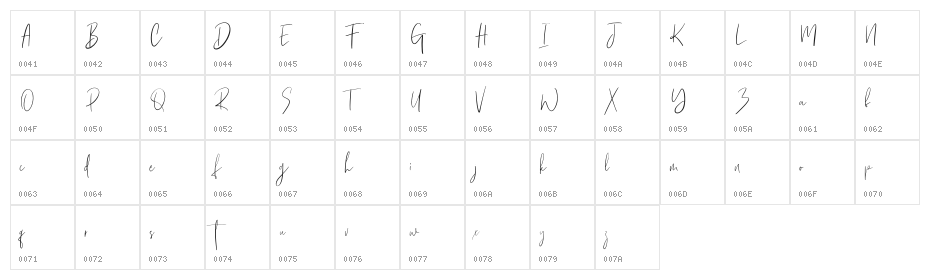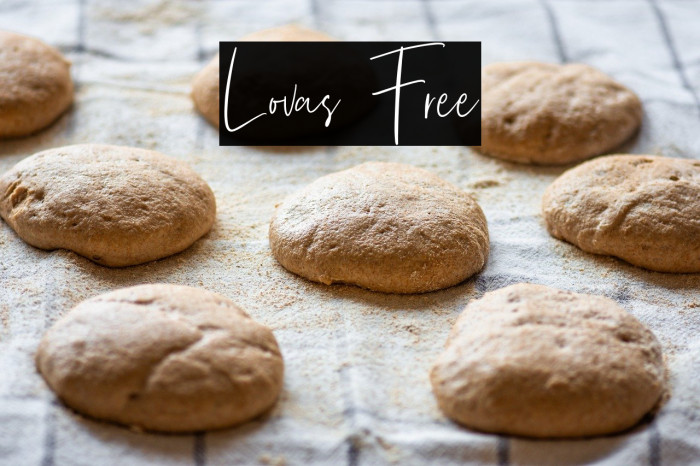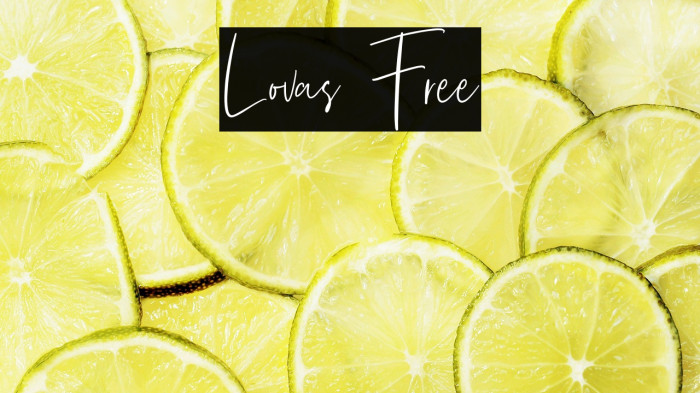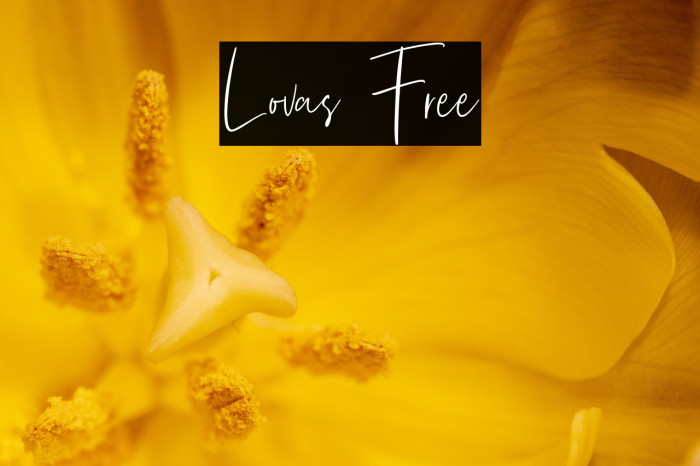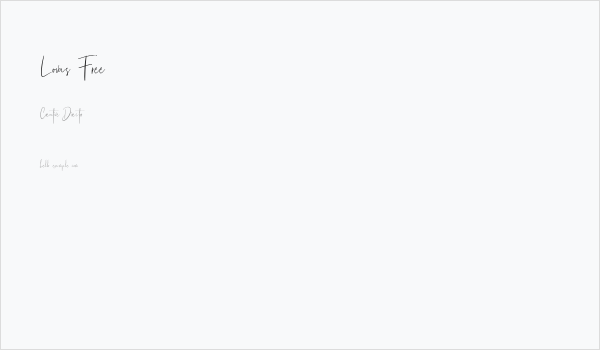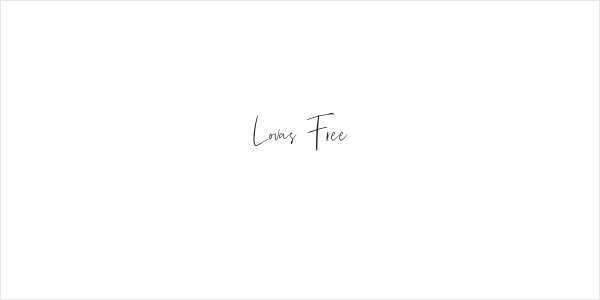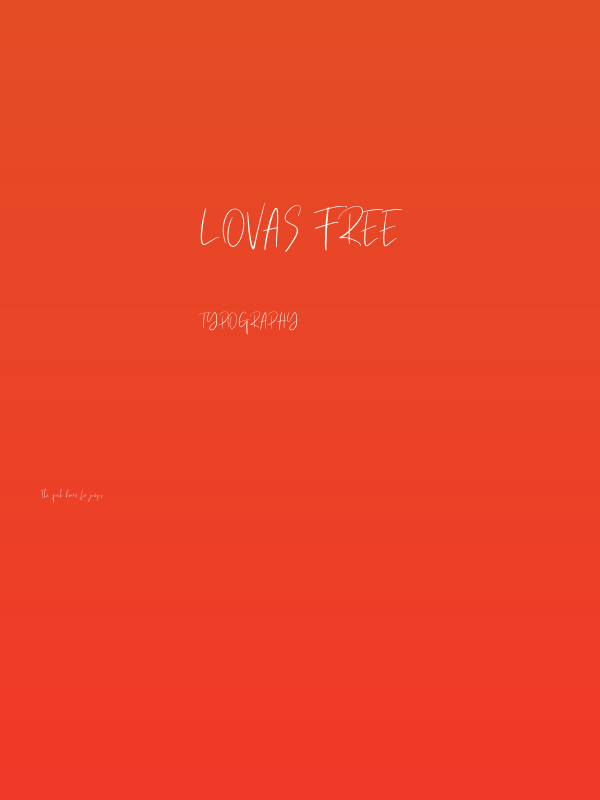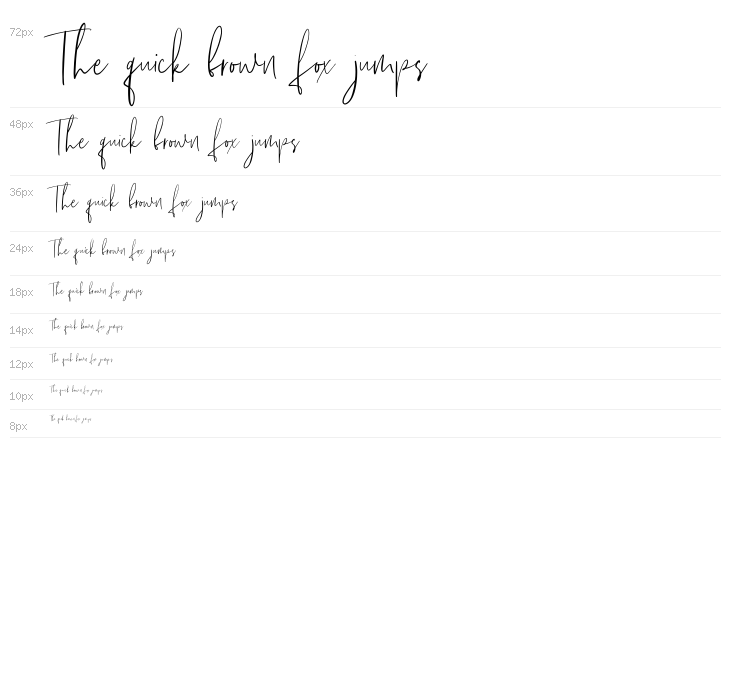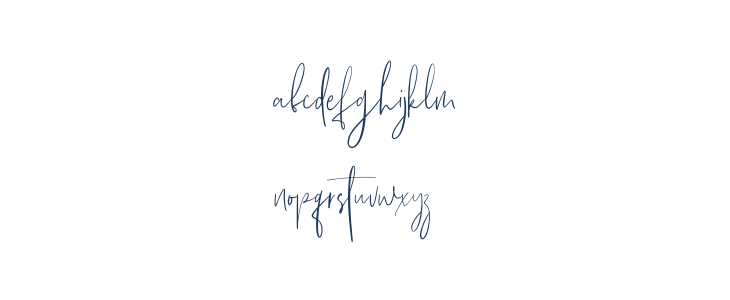
Lovas Free Font
Lovas Free Description
This font features a distinctive handwritten style with a playful and artistic flair. The uppercase letters are tall and slightly narrow, with a whimsical touch that adds personality. The lowercase letters are more delicate, with elegant loops and curves that give a sense of fluidity and movement. The numbers and special characters maintain the same artistic style, ensuring consistency throughout. The strokes are varied, with some letters having thicker downstrokes and thinner upstrokes, creating a dynamic and lively appearance. This font is perfect for projects that require a personal and creative touch.
| Use Case | Logos, Invitations, Creative projects |
| Proposed Projects | Ideal for greeting cards, invitations, branding, and creative projects that require a personal touch. |